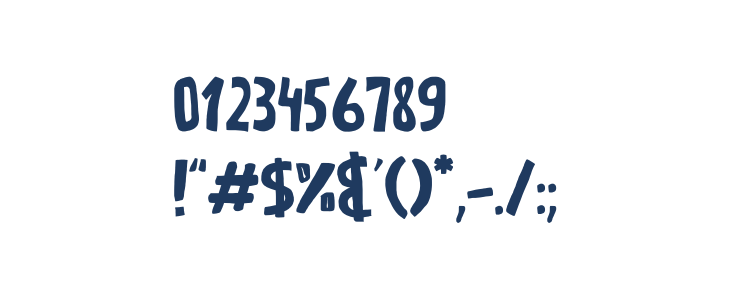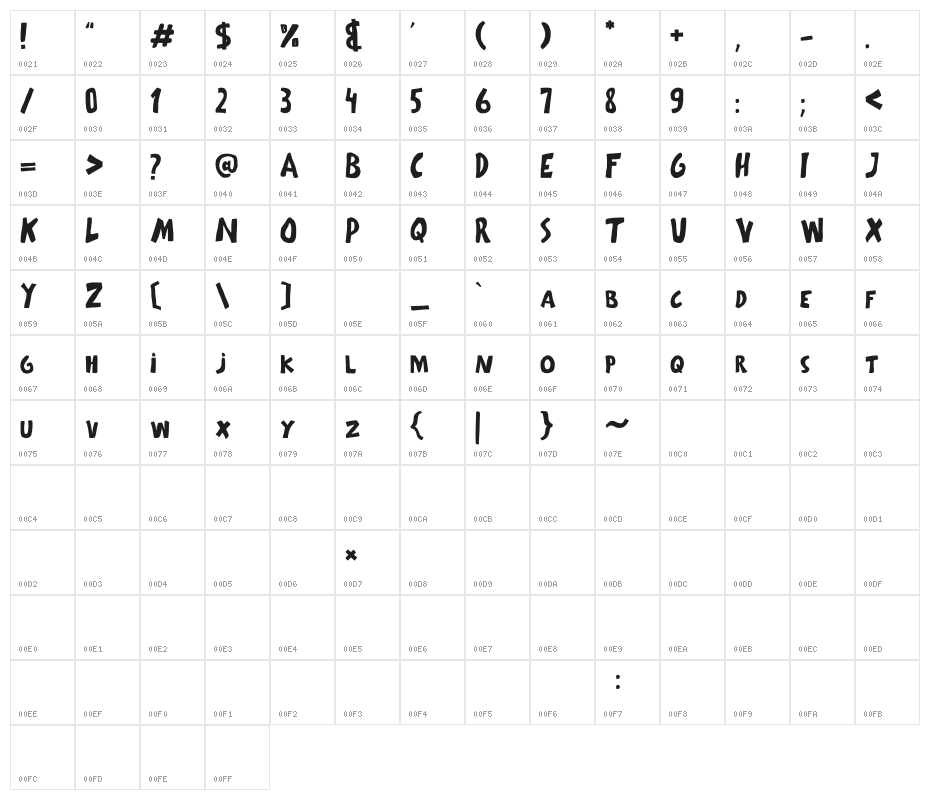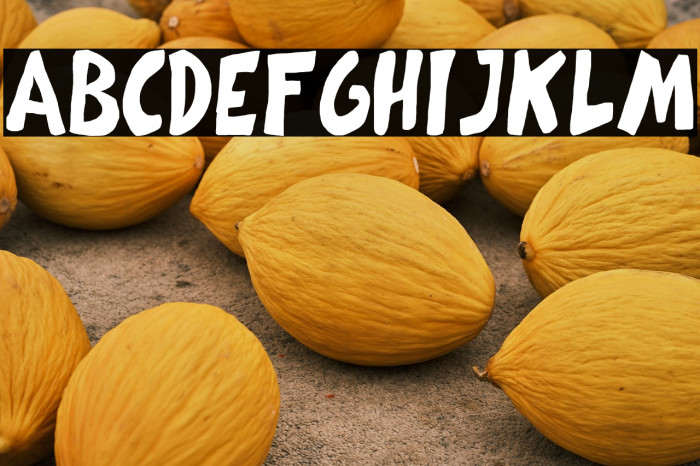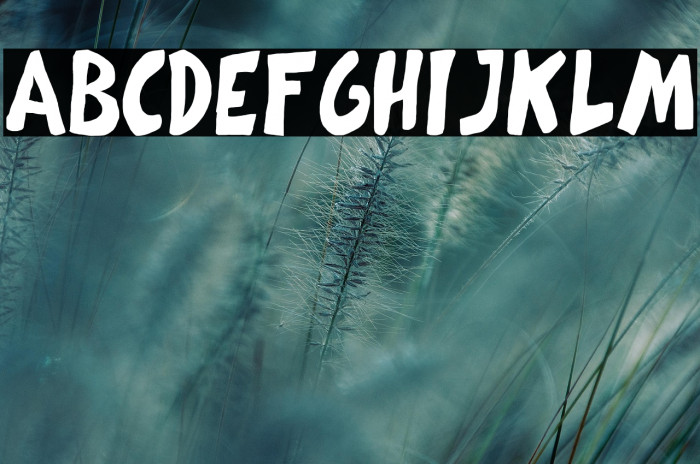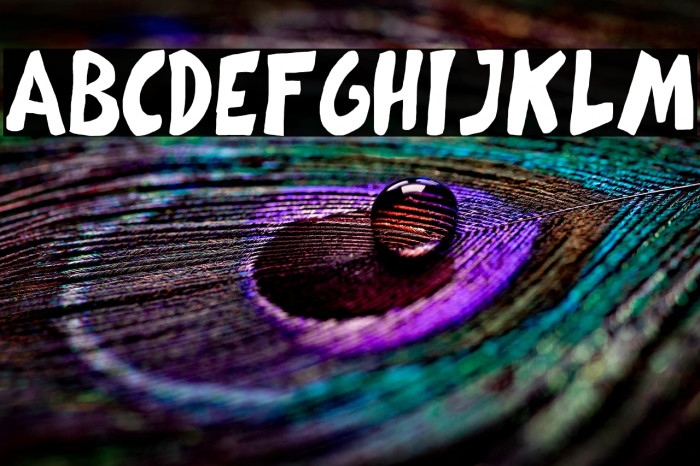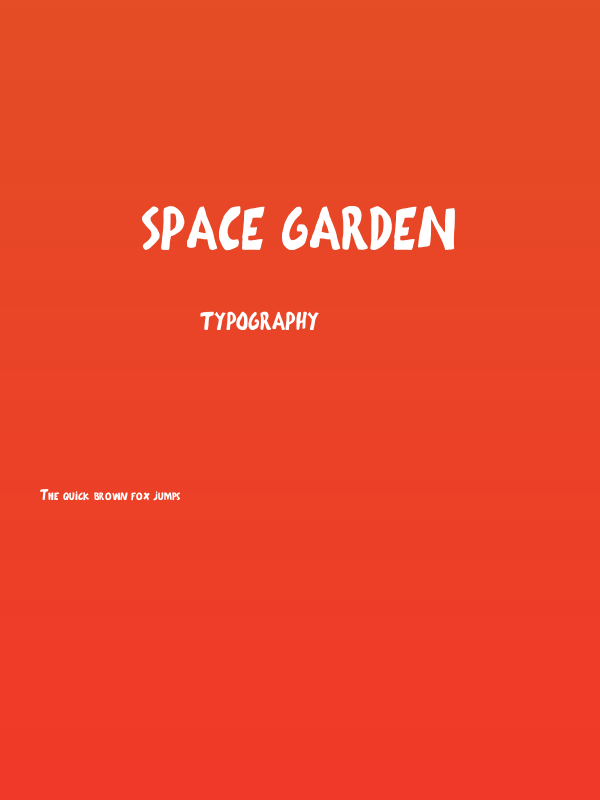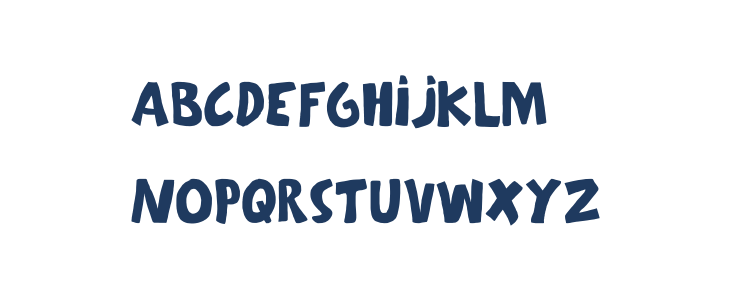
Space Garden Font
Space Garden Description
This font features a bold and playful design, characterized by its irregular, hand-drawn appearance. The letters have a dynamic, slightly tilted orientation, giving them a lively and energetic feel. The strokes are thick and uneven, contributing to a whimsical and informal style. The uppercase and lowercase letters maintain a consistent style, with rounded edges and varying stroke widths that add to the font's charm. The numbers and special characters follow the same playful aesthetic, making this font suitable for creative and fun projects.
| Use Case | Headlines, Posters, Branding |
| Proposed Projects | Ideal for children's books, playful branding, posters, and creative design projects. |